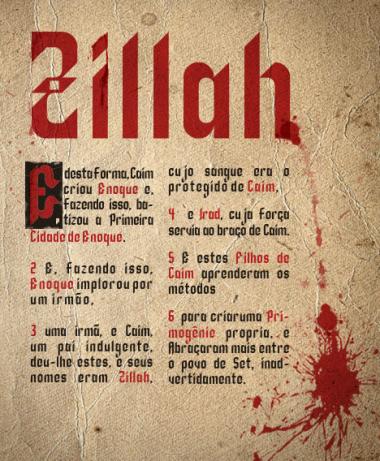
Zillah
Érico Lebedenco
A simple modular font with gothic influence.
A lovely font. I'm particularly enamoured of the l/c "a/q" idea. I might steal it...
A superb font.